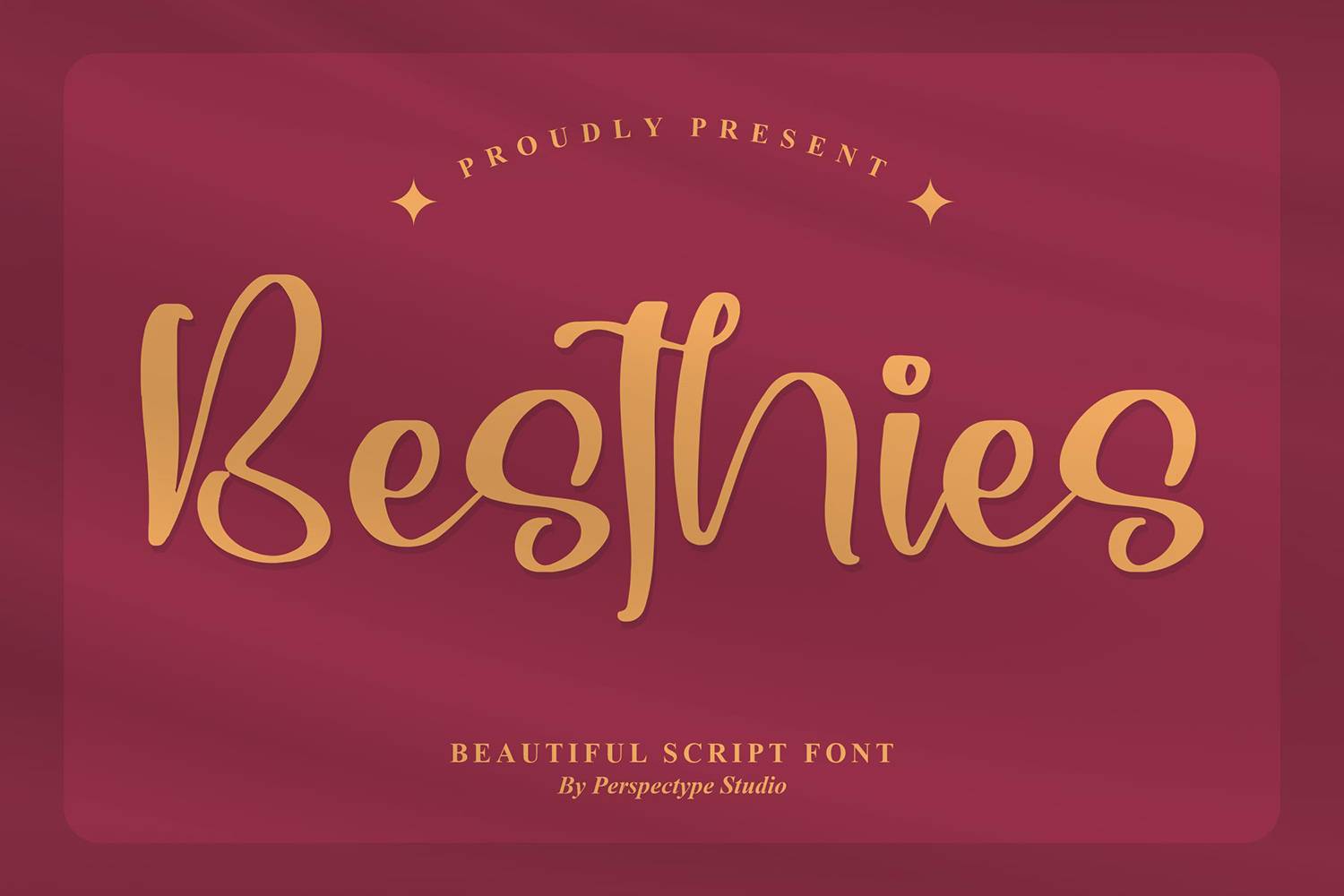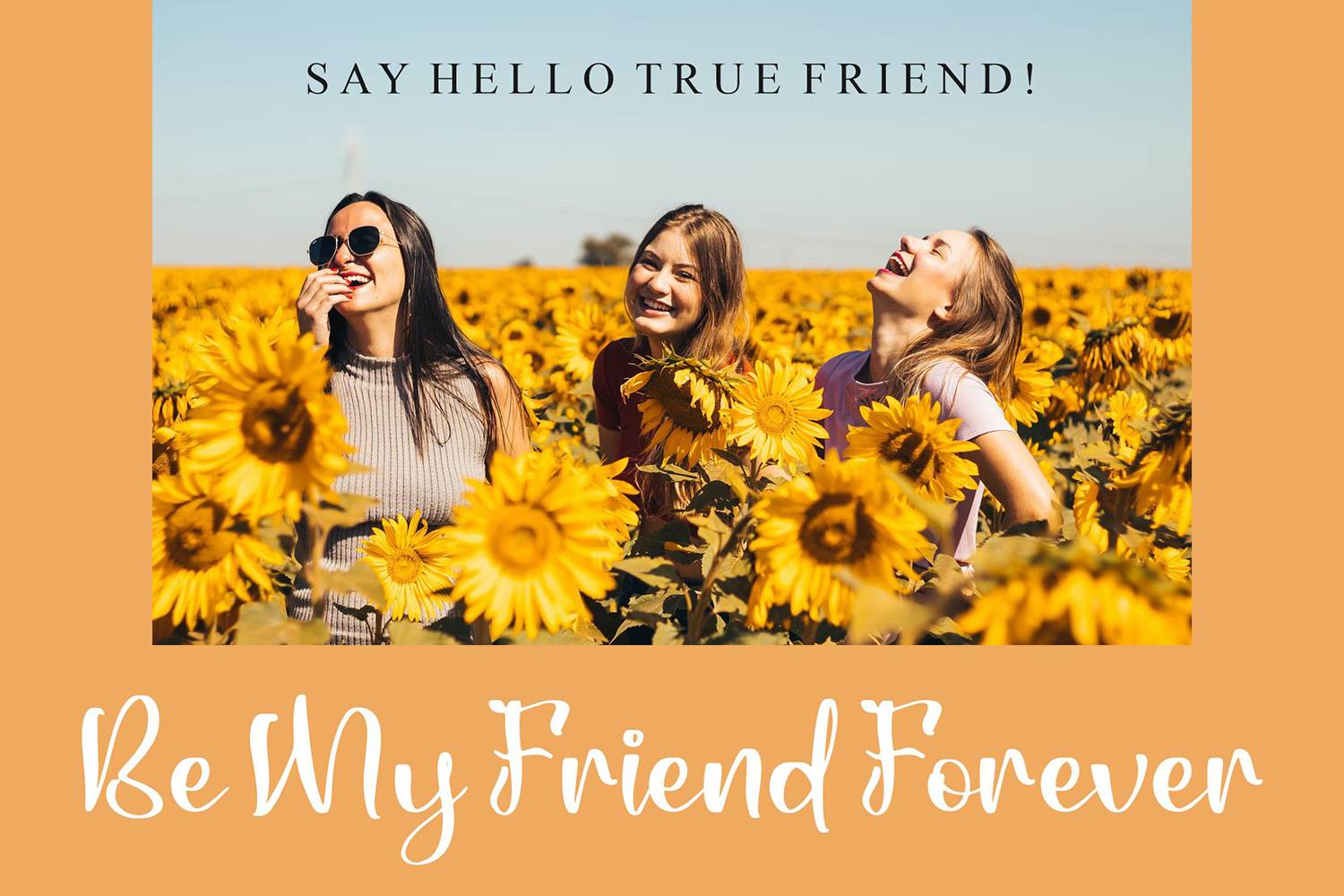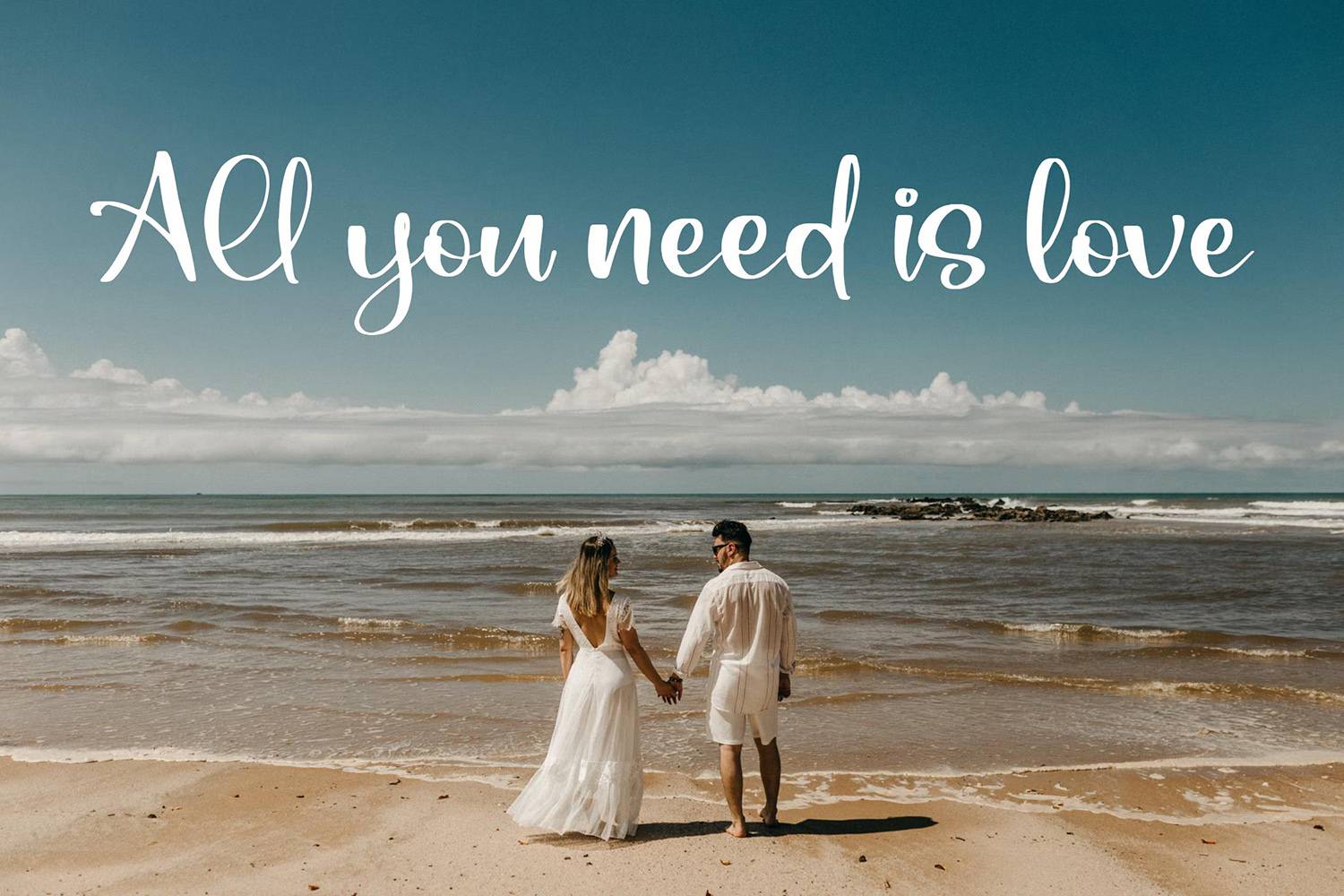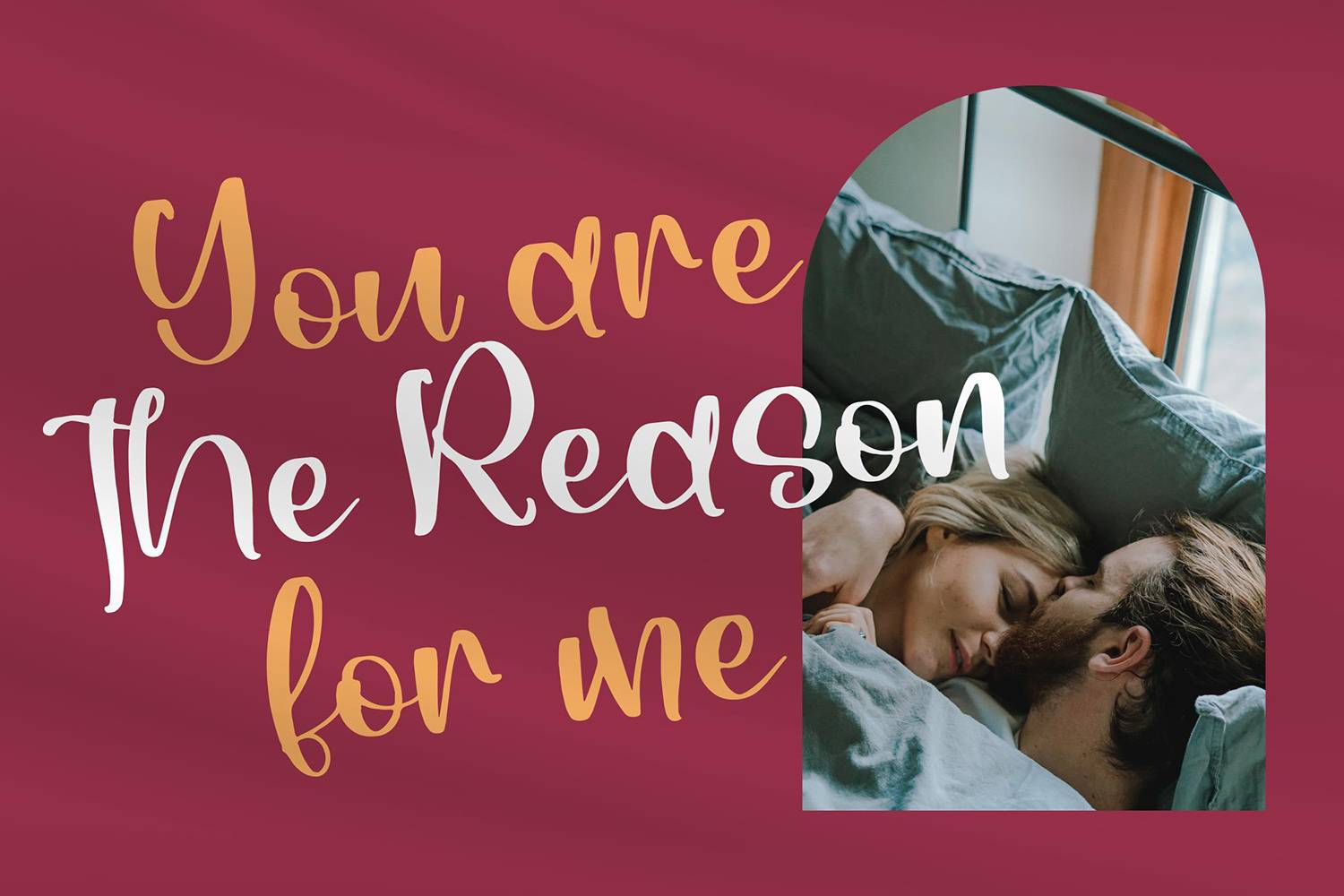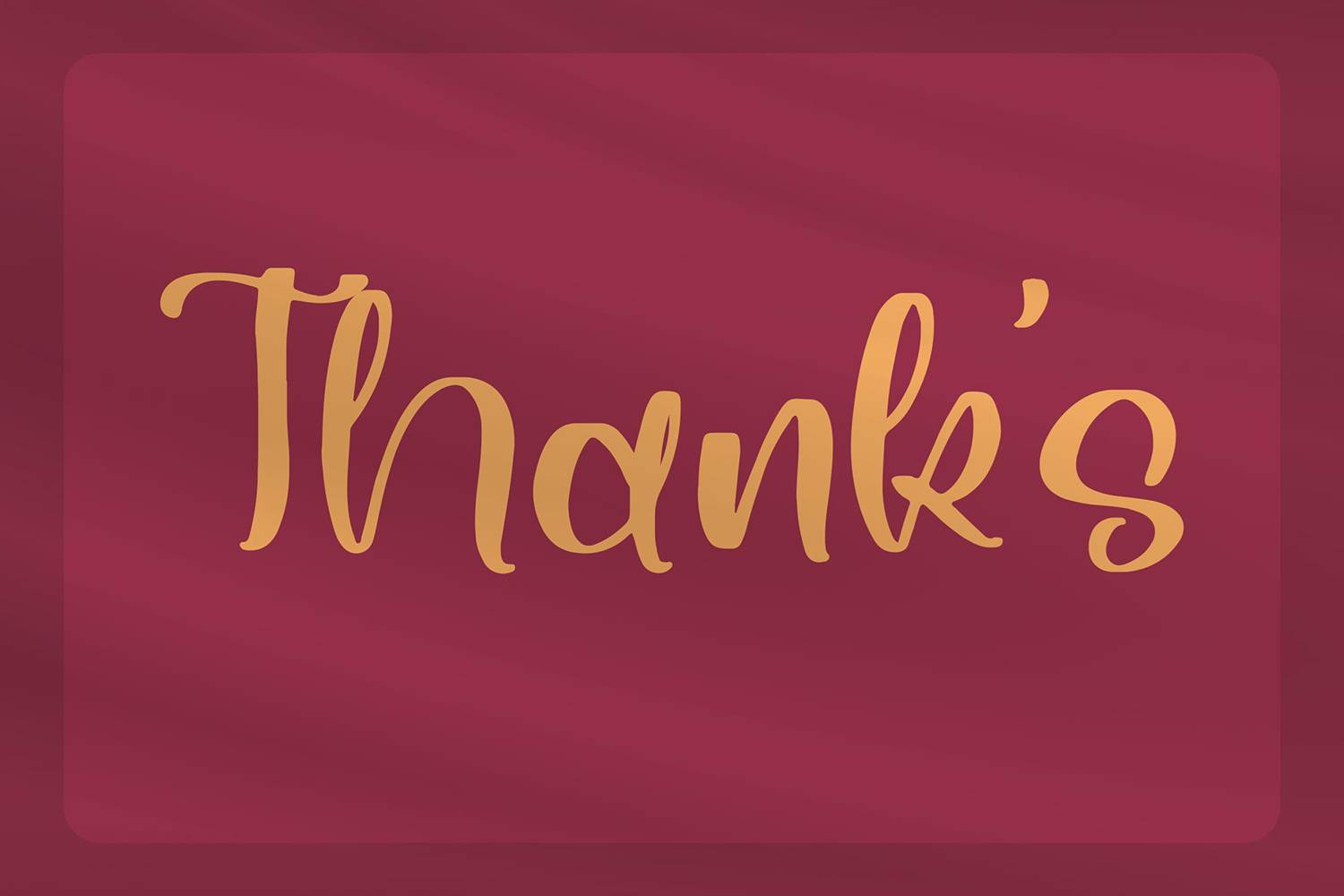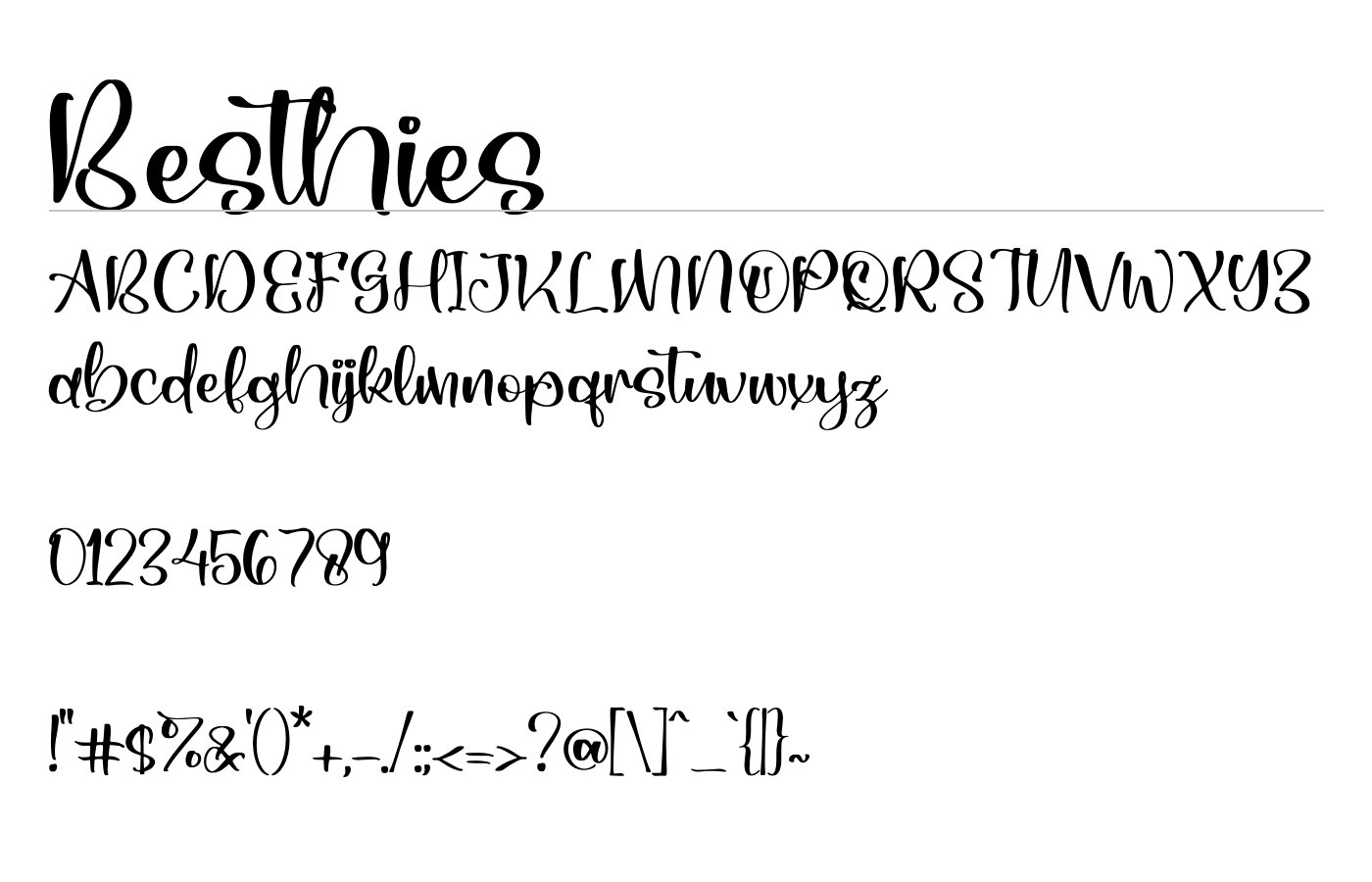
Besthies is a playful and elegant script font featuring smooth, flowing strokes and charming, rounded letterforms. Its bold yet delicate style makes it perfect for creative branding, invitations, and lifestyle projects that need a personal, friendly touch. This font beautifully blends modern calligraphy with whimsical flair, giving any design a joyful and stylish appeal.
Besthies Font
About Besthies Font